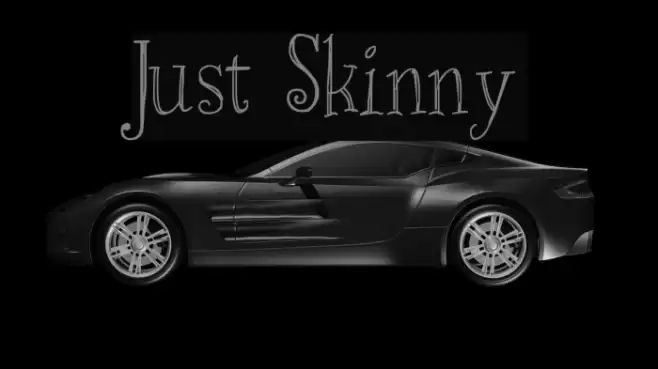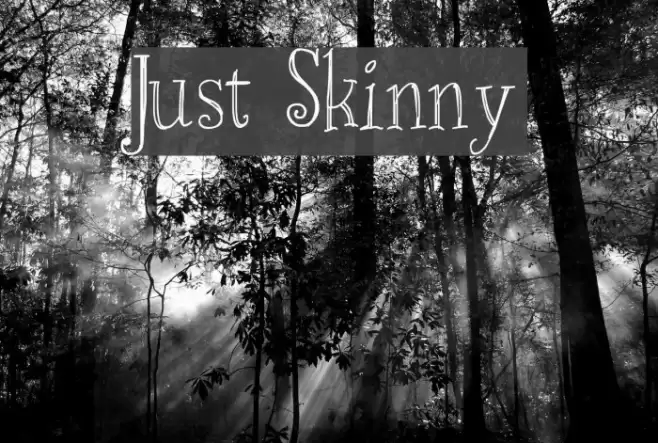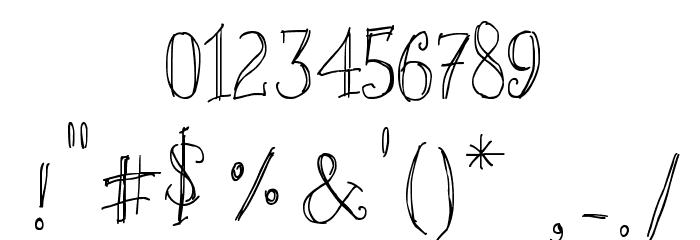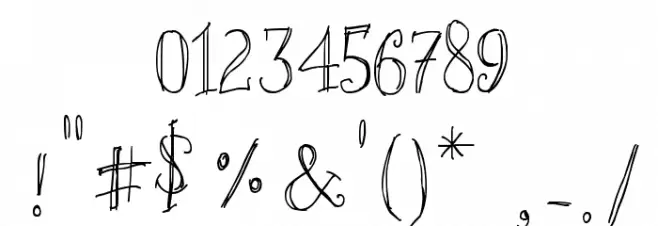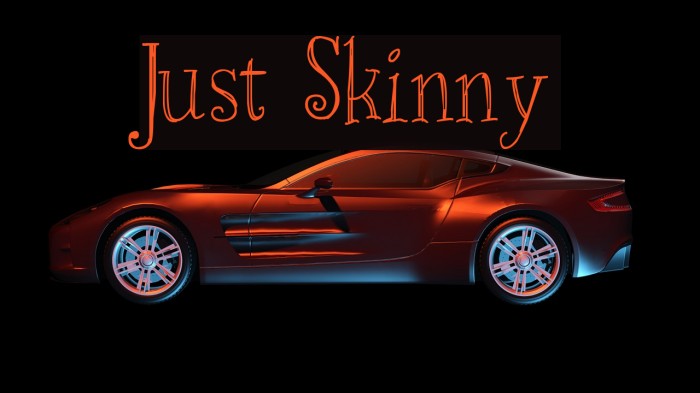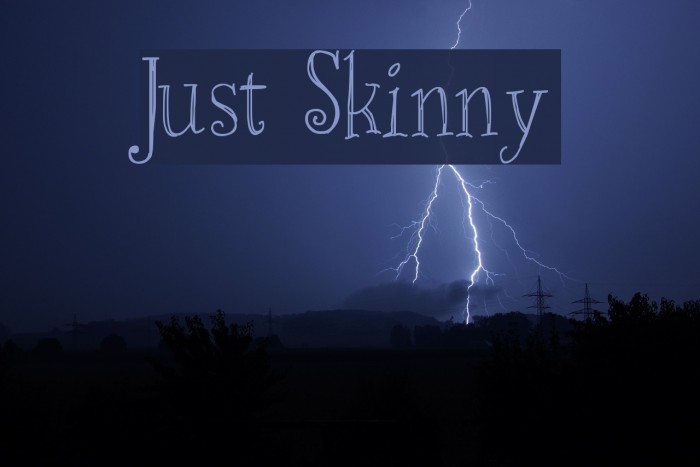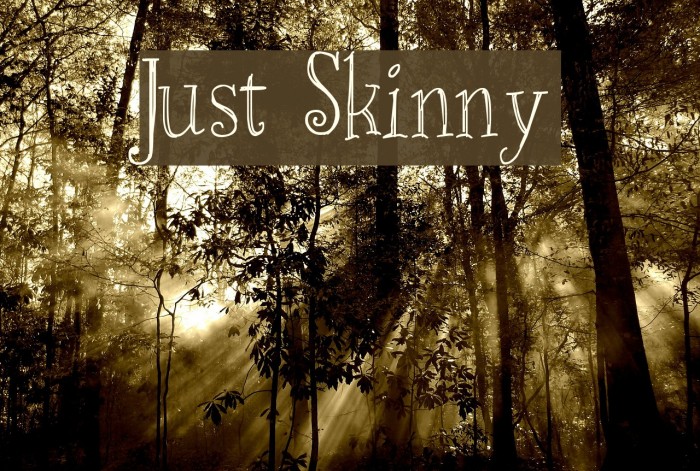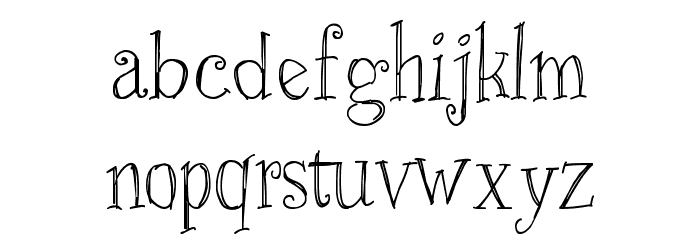
Just Skinny Font
Just Skinny Description
This font features a whimsical and playful design, characterized by its thin, elongated letterforms with a hand-drawn appearance. The strokes are uneven, giving it a casual and artistic feel. The uppercase letters are tall and narrow, while the lowercase letters maintain a consistent style, adding to the font's quirky charm. The numbers and special characters follow the same playful aesthetic, making it suitable for creative and informal projects. Its unique style can add a touch of personality and creativity to any design.
A whimsical, hand-drawn font with thin, elongated letterforms from Uncategorized fonts.
- Proposed Projects: Ideal for children's books, greeting cards, playful branding, and creative posters.
- Weight: Light
- Overall Style: Playful, Artistic
- Use Case: Headlines, Logos, Creative projects